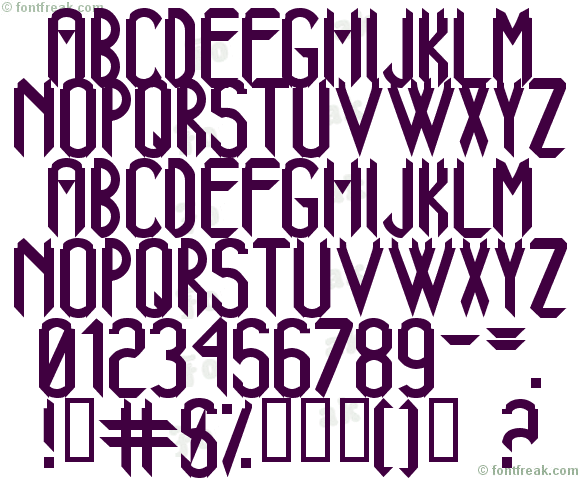
Xanadu
About Xanadu
Xanadu, designed by Lisa D. Jenkins and released as freeware in 1998, is a striking display font that draws inspiration from the renowned 1980 universal motion picture. This unique typeface stands out in the decorative category, featuring bold, angular letterforms that capture attention with their dramatic flair. The stroke weight is consistent, giving the font a robust presence, while the sharp edges and geometric shapes add a modern twist. The spacing between characters is well-balanced, allowing for easy readability even in larger text sizes, making it a versatile choice for various design projects.
This font is perfect for a range of creative applications. Its theatrical style makes it an excellent choice for movie posters, where capturing the essence of a film is crucial. Additionally, Xanadu can elevate wedding invitations, lending an air of elegance and sophistication. Restaurant menus can also benefit from this font, providing a unique touch that enhances the dining experience. Graphic designers and content creators will find it useful for branding projects, helping businesses stand out in a crowded marketplace.
Targeted primarily at graphic designers, small business owners, and content creators, Xanadu offers a fresh and bold typographic option that resonates with a broad audience. Its distinctive character set can be utilized in various marketing materials, ensuring that your designs leave a lasting impression.
In conclusion, Xanadu font free download is an excellent addition to any designer’s toolkit. Its unique blend of theatricality and modern aesthetics allows for creative freedom across multiple design platforms. This font not only pays homage to its cinematic roots but also serves as a versatile tool for contemporary design needs, making it a standout choice for those looking to make an impact.